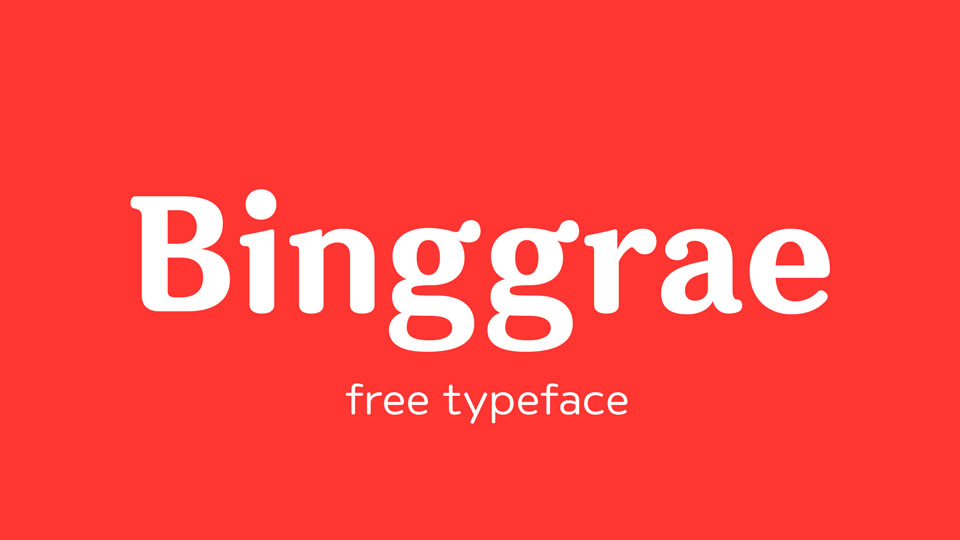
Binggrae Font
Binggrae is a soft and smooth free font family with concept of smlile and happiness. It contains Serif and Sans Serif fonts. Each style comes in Regular and Bold weights, contains uppercase and lowercase letters, numbers, symbols, multilingual accents, including Korean and Japanese.
• Name: Binggrae
• Author: Lee ju